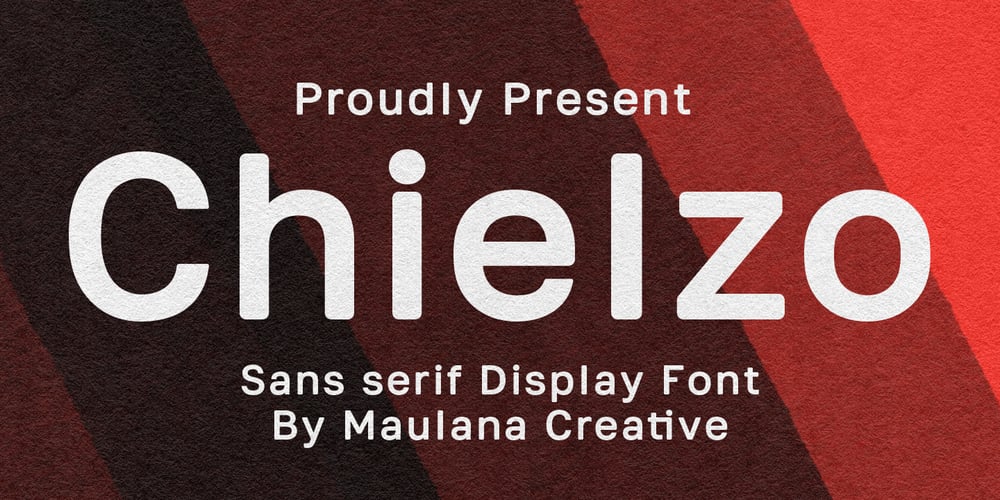
MC Chielzo Font Family was designed by Gilang Maulana and published by Maulana Creative. MC Chielzo contains 1 styles and family package options. Chielzo rounded display sans serif font. With bold tall and rounded stroke, fun character with a bit of ligatures. To give you an extra creative work. Chielzo font support multilingual language. This font is good for logo design, Social media, Movie Titles, Books Titles, a short text even a long text letter and good for your secondary text font with sans or serif. Make a stunning work with Chielzo font.Cheers,Maulana Creative